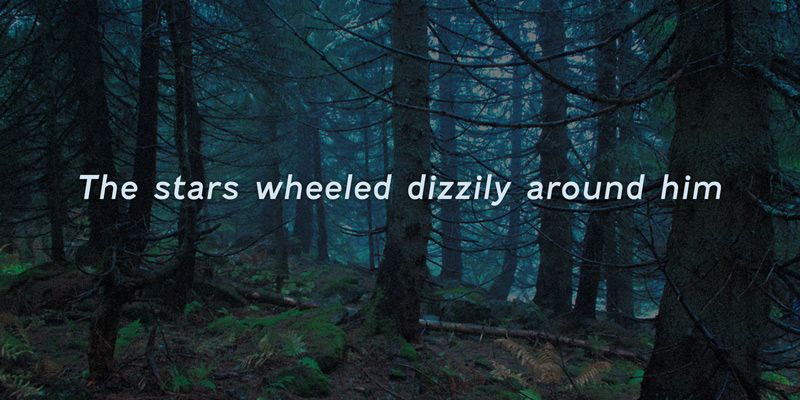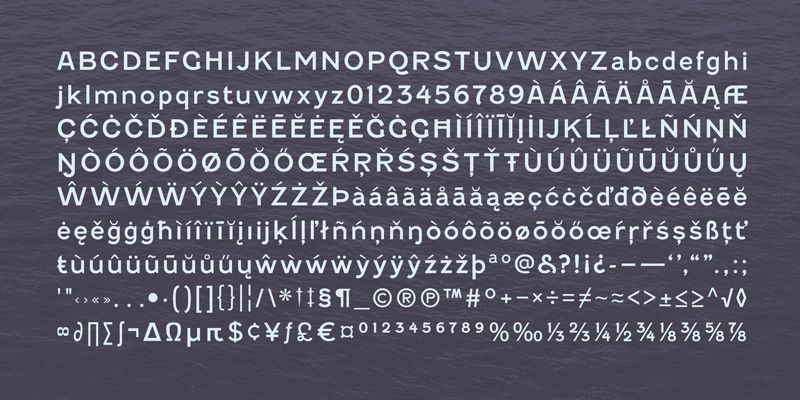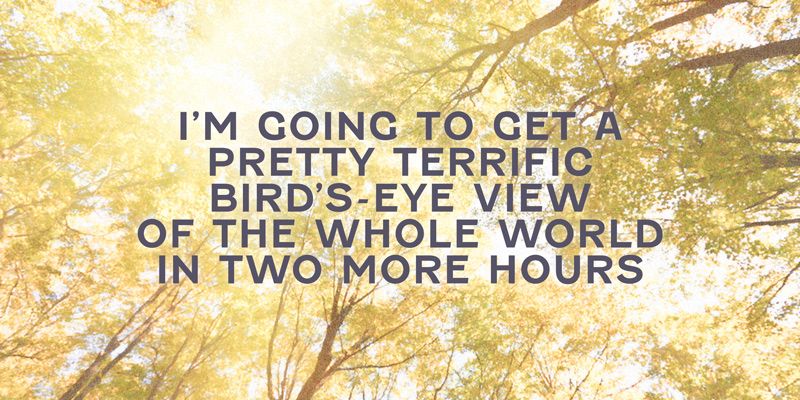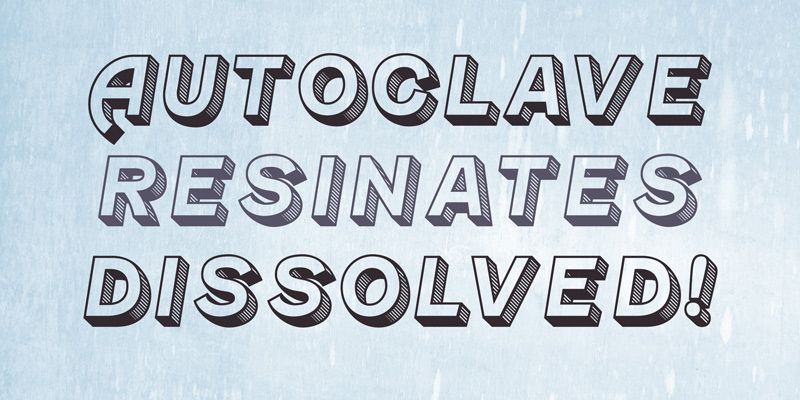
Fenwick has the uneven poise of a hand-painted sign around 1900. Its grotesque structure and unusual proportions feel rooted in metal type without requiring a full period costume. Light, Regular, and Bold styles, with italics, form a practical core; Outline adds a more decorative accent for short titles. That mix suits restored hotels, heritage railways, museums, markets, and food brands that need more than one nostalgic headline. Fenwick can carry a room name or event poster and continue into menus, schedules, labels, and visitor material. Use Outline sparingly for a sign-like moment, then let the solid styles organize the information around it.